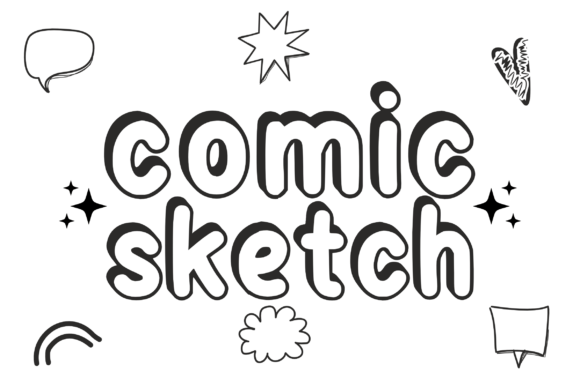
Introducing Comic Sketch: The Ultimate Font for Creative Expression
Are you looking for a font that can add a touch of playfulness and modernity to your designs? Look no further than Comic Sketch, a cute and modern comic outline font that is perfect for a wide range of creative projects. In this article, we’ll take a closer look at the features and benefits of Comic Sketch, and explore how it can be used to bring your imagination to life.
What is Comic Sketch?
Comic Sketch is a unique and versatile font that is designed to bring a smile to your face. Each character is carefully crafted to be cheerful and easy to recognize, making it perfect for use in a variety of creative projects. Whether you’re designing a t-shirt, mug, tote bag, or animation, Comic Sketch is the perfect choice.
Key Features of Comic Sketch
- Cute and Modern Design: Comic Sketch has a fresh and modern design that is sure to appeal to anyone looking for a playful font.
- Easy to Read: Each character is carefully designed to be easy to recognize, making it perfect for use in titles, headings, and body text.
- Outline Font: Comic Sketch is an outline font, which means it can be used to create a wide range of effects, from subtle outlines to bold and colorful designs.
- Versatile: Comic Sketch can be used in a wide range of creative projects, from sublimation design to animations and more.
Uses for Comic Sketch
Comic Sketch is a versatile font that can be used in a wide range of creative projects, including:
- Sublimation Design: Create stunning sublimation designs for t-shirts, mugs, tote bags, and more.
- Animations: Use Comic Sketch to add a playful touch to your animations and cartoons.
- Comic Titles: Create eye-catching comic titles and headings that are sure to grab attention.
- Invitations and Greeting Cards: Use Comic Sketch to create fun and playful invitations and greeting cards.
Benefits of Using Comic Sketch
There are many benefits to using Comic Sketch in your creative projects, including:
- Unique and Playful Design: Comic Sketch has a unique and playful design that is sure to stand out from the crowd.
- Versatile: Comic Sketch can be used in a wide range of creative projects, making it a great addition to any designer’s toolkit.
- High-Quality: Comic Sketch is a high-quality font that is designed to produce crisp and clear results, even at small sizes.
Tips for Using Comic Sketch
Here are a few tips for getting the most out of Comic Sketch:
- Experiment with Different Colors: Comic Sketch looks great in a wide range of colors, so don’t be afraid to experiment and find the perfect color for your design.
- Use it with Other Fonts: Comic Sketch can be used with other fonts to create interesting and dynamic designs.
- Pay Attention to Size: Make sure to adjust the size of Comic Sketch to fit your design, as it can look great at a wide range of sizes.
In conclusion, Comic Sketch is a unique and versatile font that is perfect for anyone looking to add a touch of playfulness and modernity to their designs. With its cute and modern design, easy-to-read characters, and outline font style, Comic Sketch is perfect for use in a wide range of creative projects. Whether you’re designing a t-shirt, mug, tote bag, or animation, Comic Sketch is the perfect choice. So why wait? Download Comic Sketch today and start bringing your imagination to life!